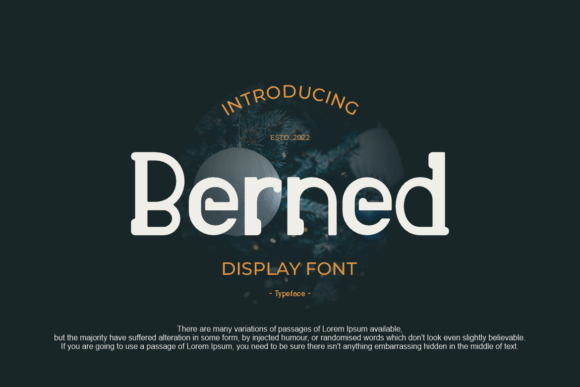
The Quirky Charm of Berned Font: A Designer’s New Best Friend
I still remember the design project that led me to discover the Berned font. I was working on a crafty branding project for a client who wanted a playful yet sophisticated look. As I scrolled through font after font, nothing seemed quite right – until I stumbled upon Berned. Its quirky charm and cool display style instantly won me over, and I knew I’d found the perfect fit. In this article, I’ll share my love for the Berned font, its features, and how to make the most of it in your designs.
An Honest Review of Berned Font
What I Love About Berned Font
- ✨ Unique and quirky design that’s perfect for crafty and creative projects
- ✅ Highly legible, even at smaller sizes
- 💡 Supports OpenType features, glyphs, and stylistic alternates for added versatility
- 🎨 Available in various weights to suit different design needs
While Berned font is an excellent choice for many projects, there are a few things to keep in mind:
- 🤔 May not be suitable for very formal or traditional designs, as its quirky style might not fit the tone
- ⚠️ Some characters may not be suitable for body text, as they are designed with a more decorative approach
The Backstory of Berned Font
The Berned font was designed with creativity and playfulness in mind. Its unique style is inspired by the world of crafting and DIY projects, where imperfections and quirks are celebrated. The font’s creator aimed to capture the essence of handmade designs, where every element is carefully crafted to convey a sense of personality and charm.
Q: What type of projects is Berned font best suited for?
A: Berned font is perfect for crafty, creative projects, such as branding, social media graphics, party invitations, and DIY materials.
Q: Is Berned font available in different weights?
A: Yes, Berned font comes in various weights, making it versatile for different design needs.
Q: Can I use Berned font for body text?
A: While Berned font is highly legible, it’s primarily designed for display purposes. For body text, you may want to choose a more traditional font for better readability.